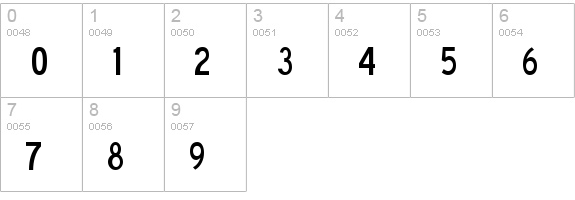
Blue Highway D Type is a modern and sleek font that exudes a sense of sophistication and professionalism. With its clean lines and distinctive style, this font is perfect for a wide range of design projects, from branding to web design. The geometric shapes and sharp angles of Blue Highway D Type give it a futuristic and cutting-edge look that is sure to make a statement. What sets Blue Highway D Type apart is that it is available for free download at FontsMarket.com. This means that you can easily access this high-quality font without any cost, making it a valuable resource for designers and creatives looking to enhance their projects with a unique and stylish typeface. Whether you're creating a sleek logo, designing a modern website, or crafting eye-catching marketing materials, Blue Highway D Type is a versatile and versatile font that will elevate your designs to the next level.